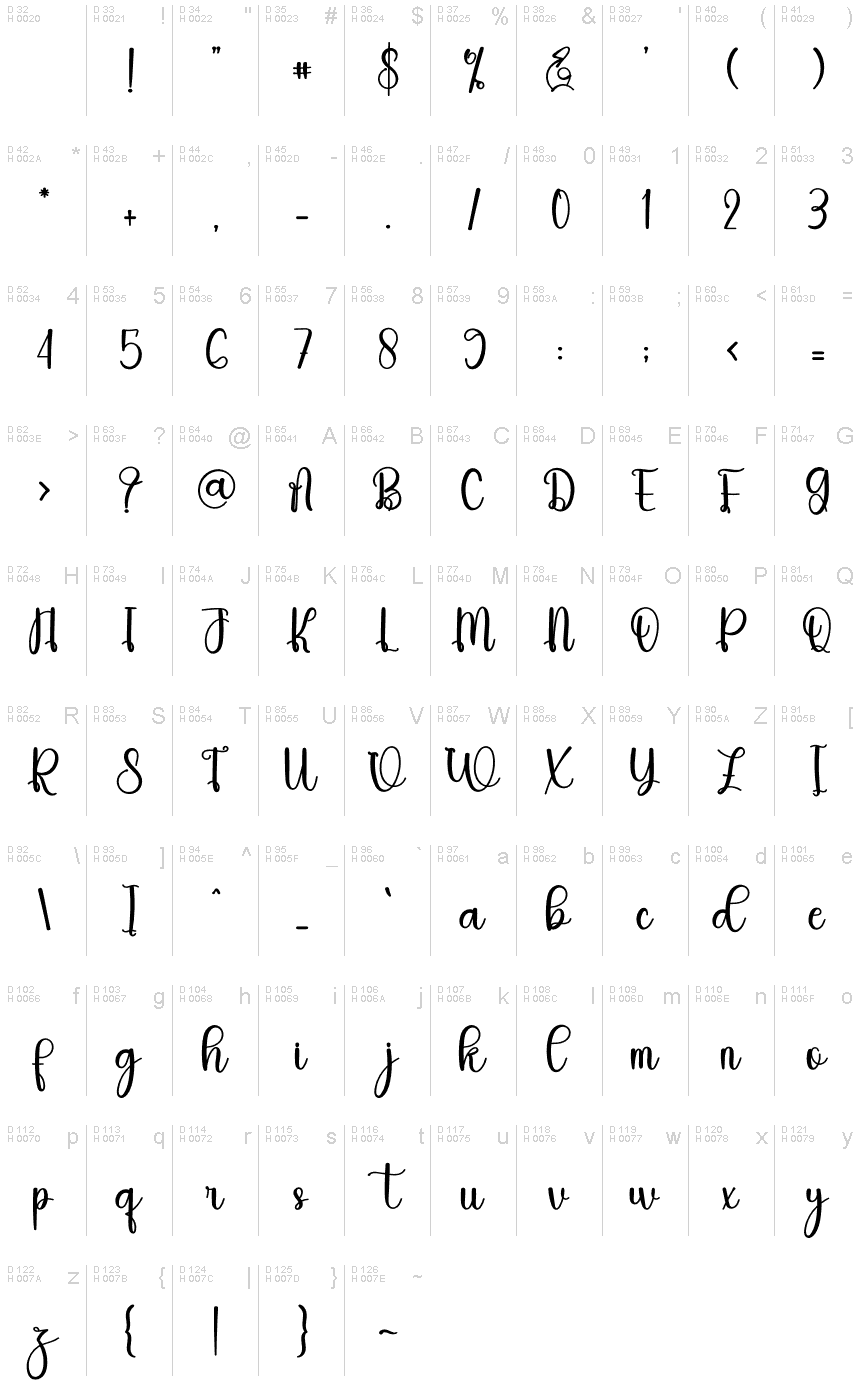
Gupphy
Gupphy, a captivating handwritten font by Inermedia Studio, offers a delightful blend of elegance and playfulness. With its semi-light weight and semi-condensed width, Gupphy is perfect for adding a touch of sophistication to various digital and print projects. Let your creativity soar as you utilize this versatile typeface for logo designs, social media graphics, wedding invitations, and even children's book illustrations. Whether you're aiming for a vintage charm or a modern twist, Gupphy's distinctive style will effortlessly elevate your projects to new heights.